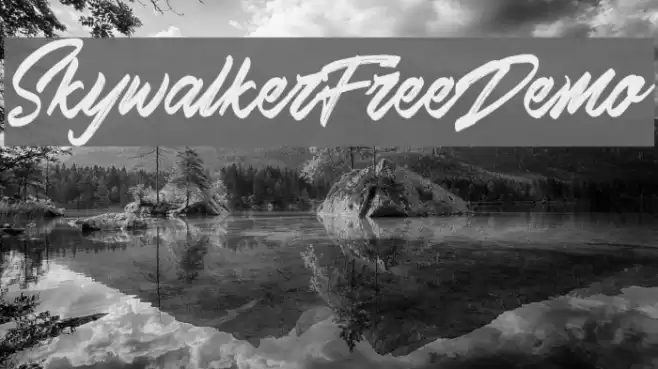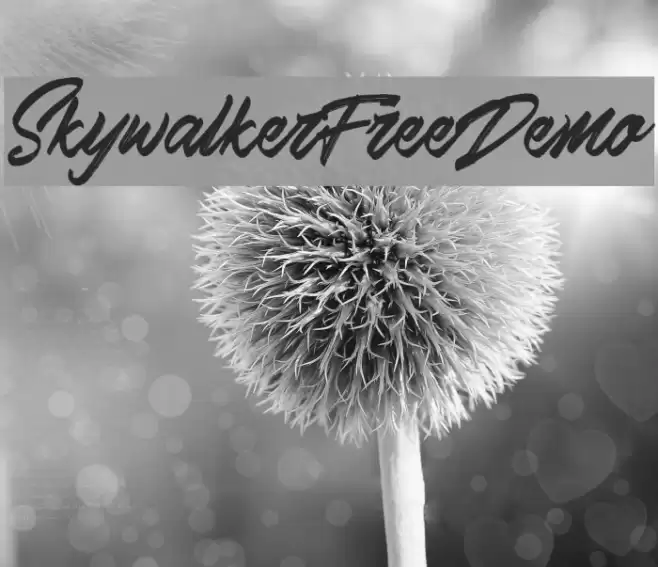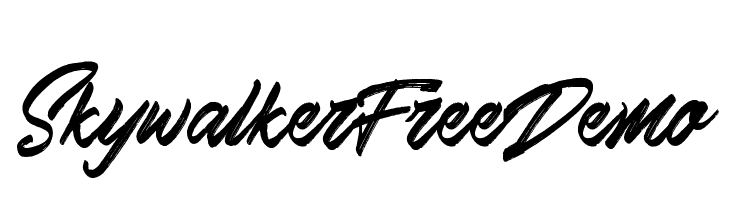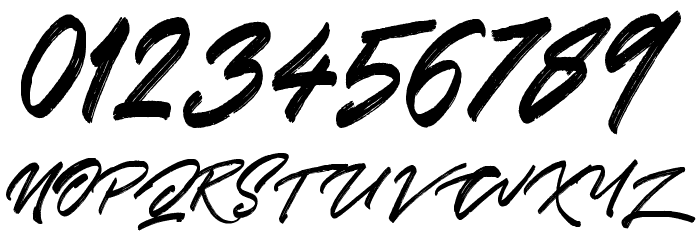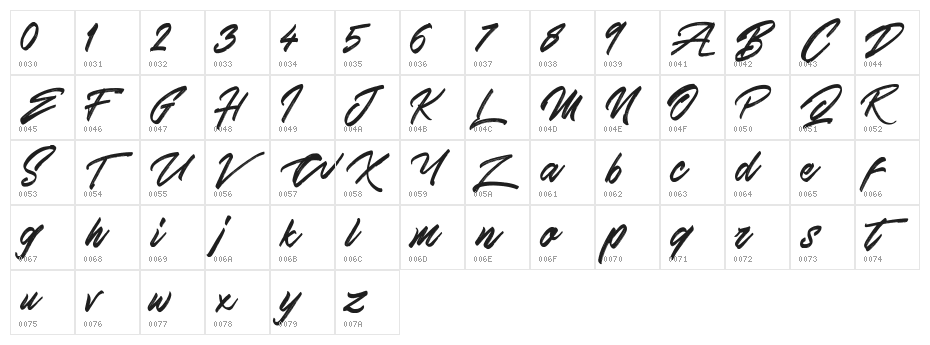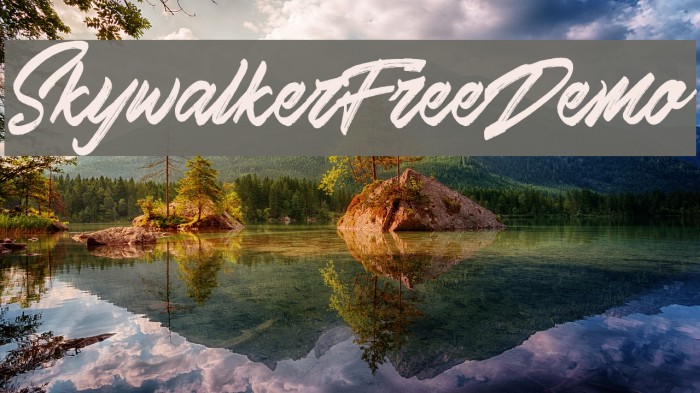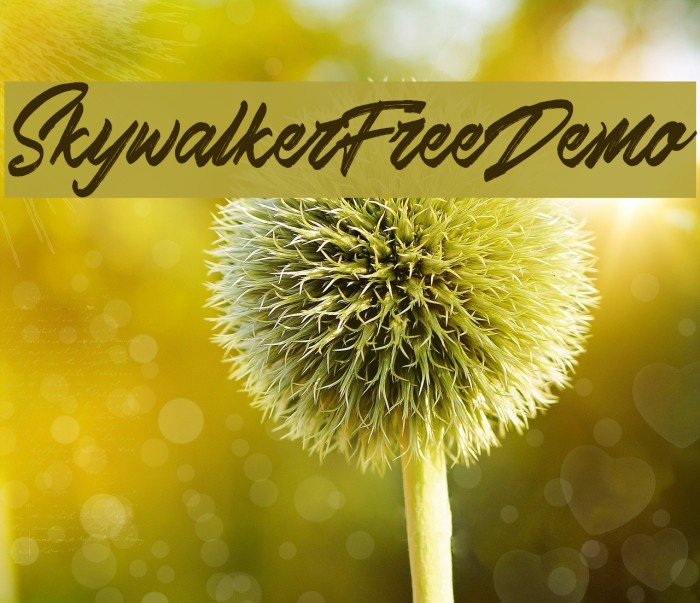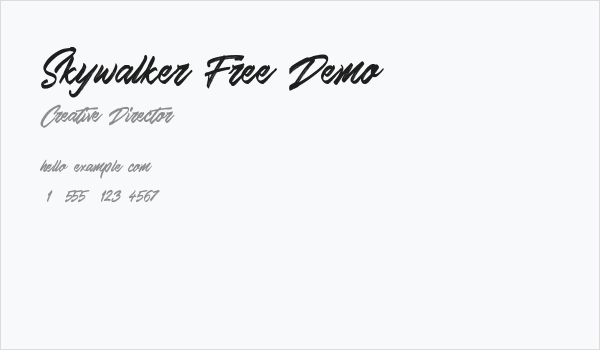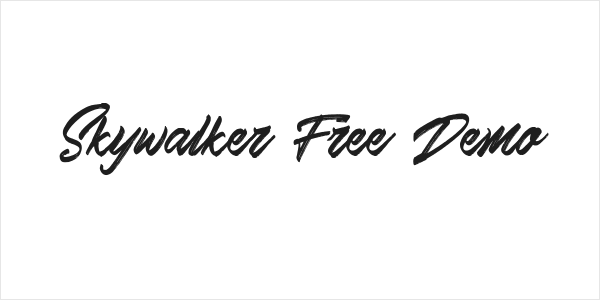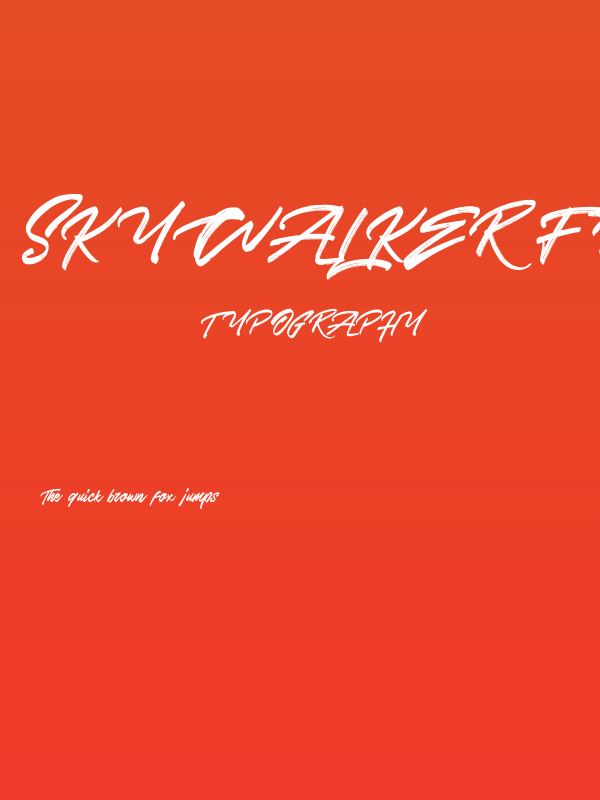
Skywalker Free Demo Font
Skywalker Free Demo Description
This font exhibits a bold and dynamic script style, characterized by its brush-like strokes and energetic flow. The uppercase letters are particularly striking, with a sense of movement and flair that suggests a handwritten quality. The lowercase letters maintain this fluidity, offering a cohesive and artistic appearance. Numbers and special characters are integrated seamlessly, maintaining the overall aesthetic. The font's design is both modern and expressive, making it suitable for creative and impactful designs.
A bold, brush-style script font with dynamic and expressive strokes from Script fonts.
- Proposed Projects: Ideal for branding, logos, posters, and any project requiring a bold, artistic touch.